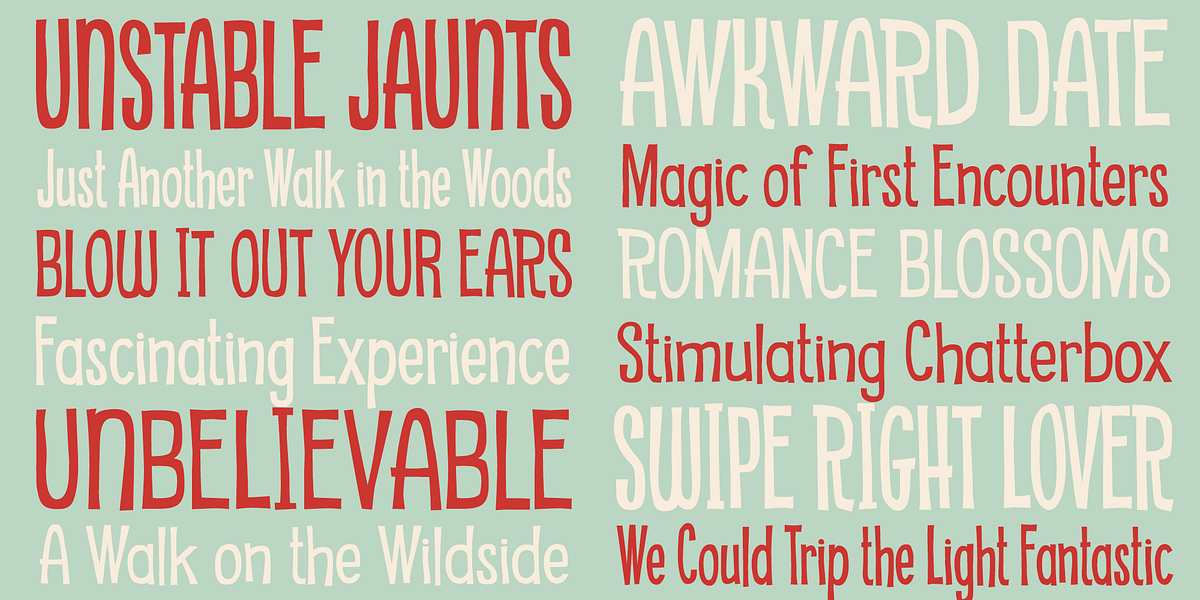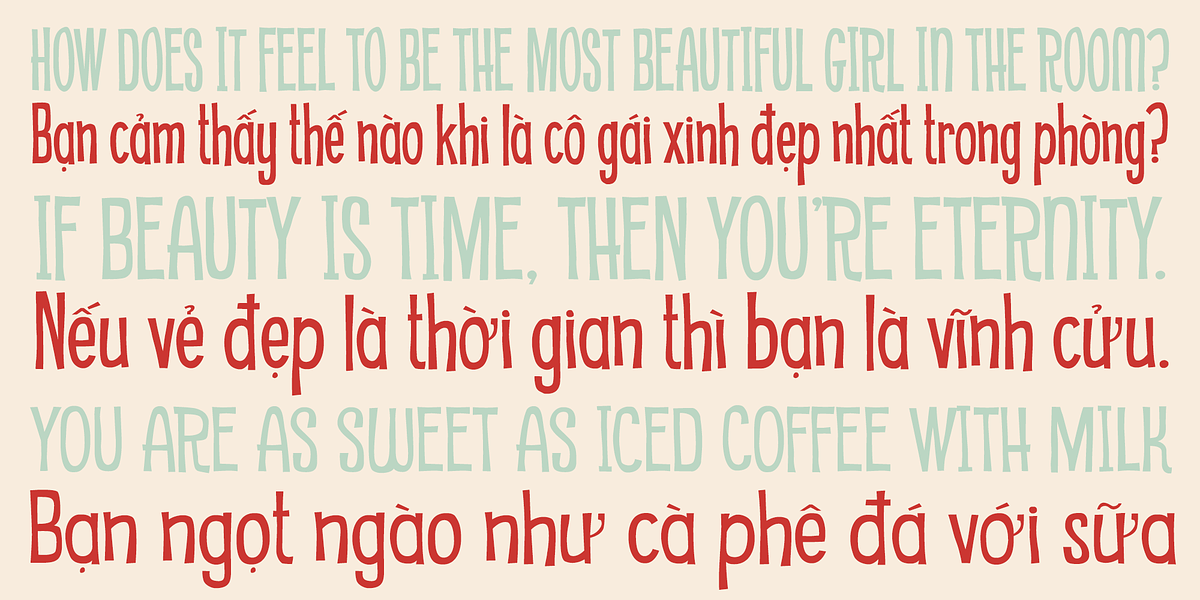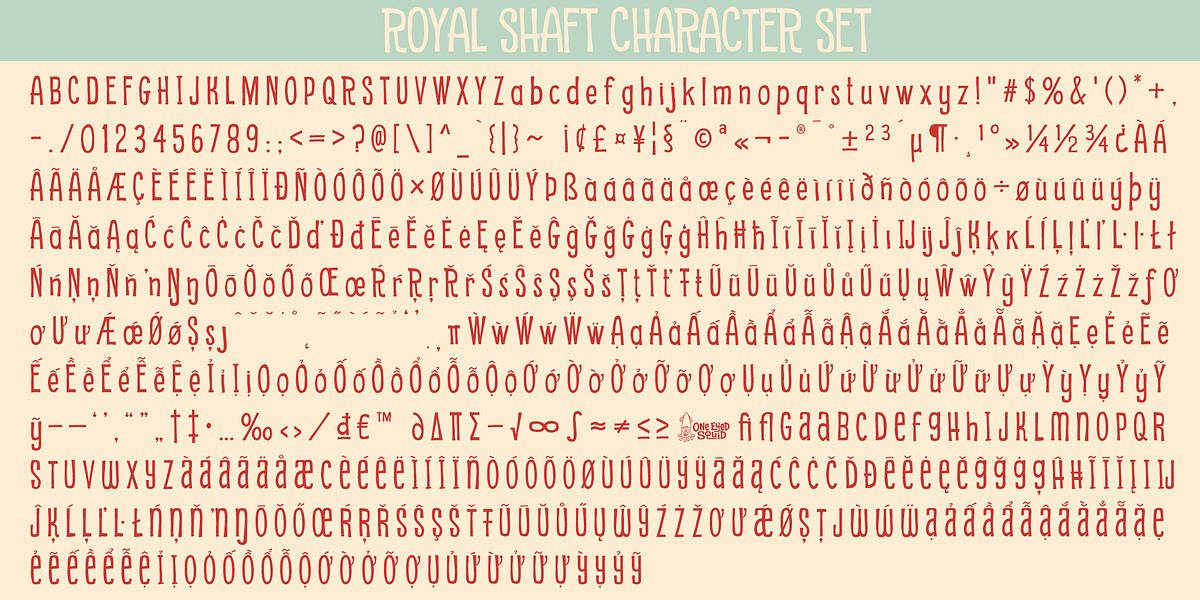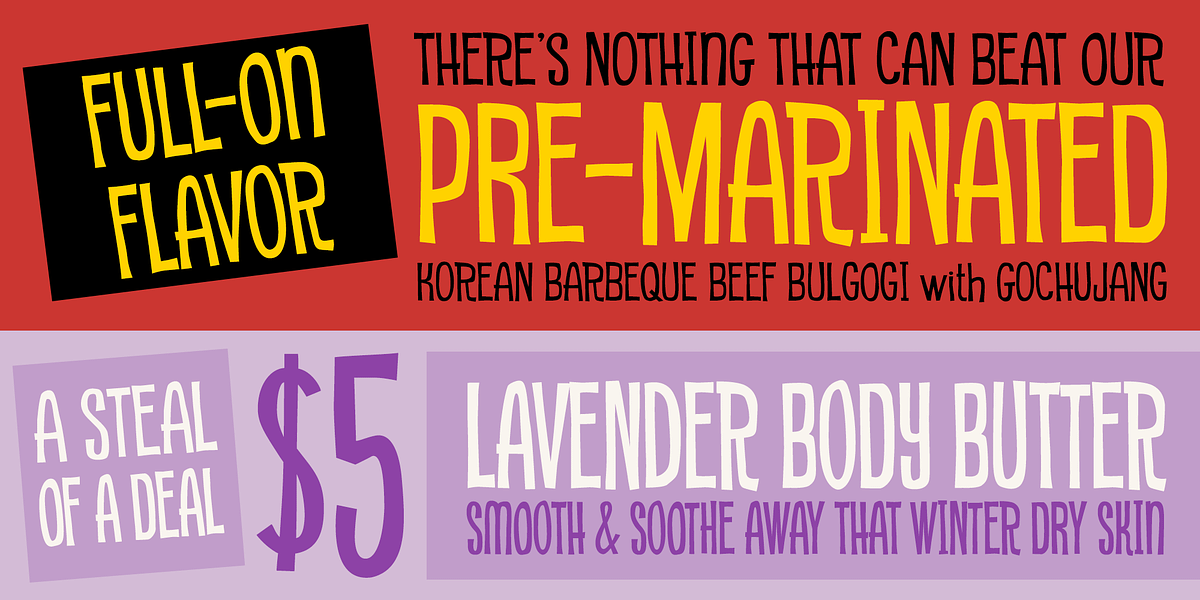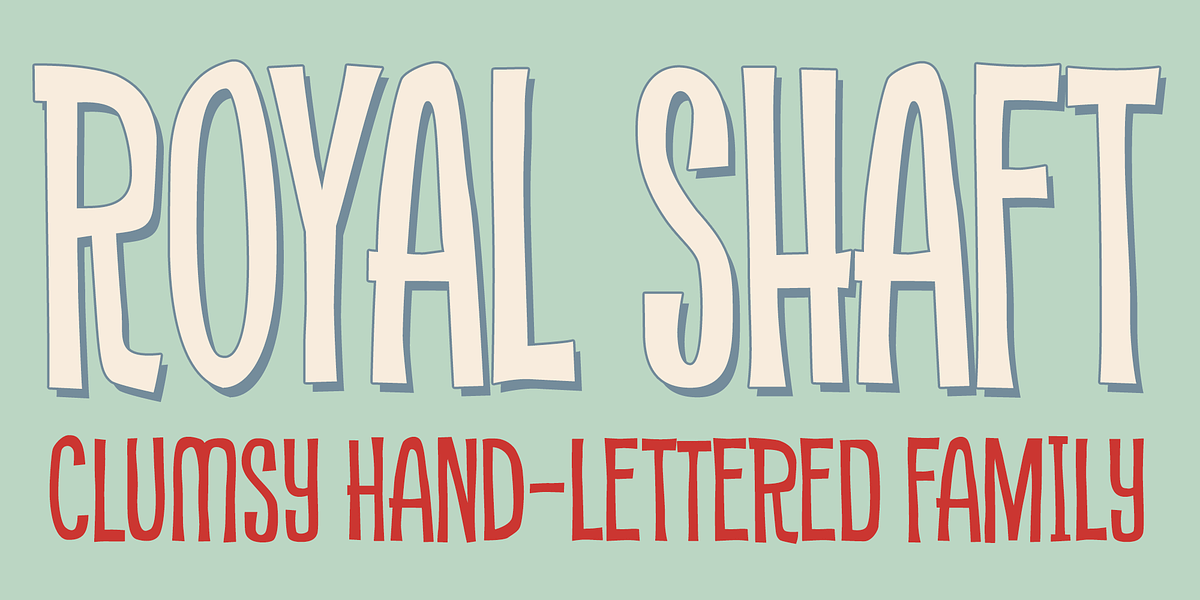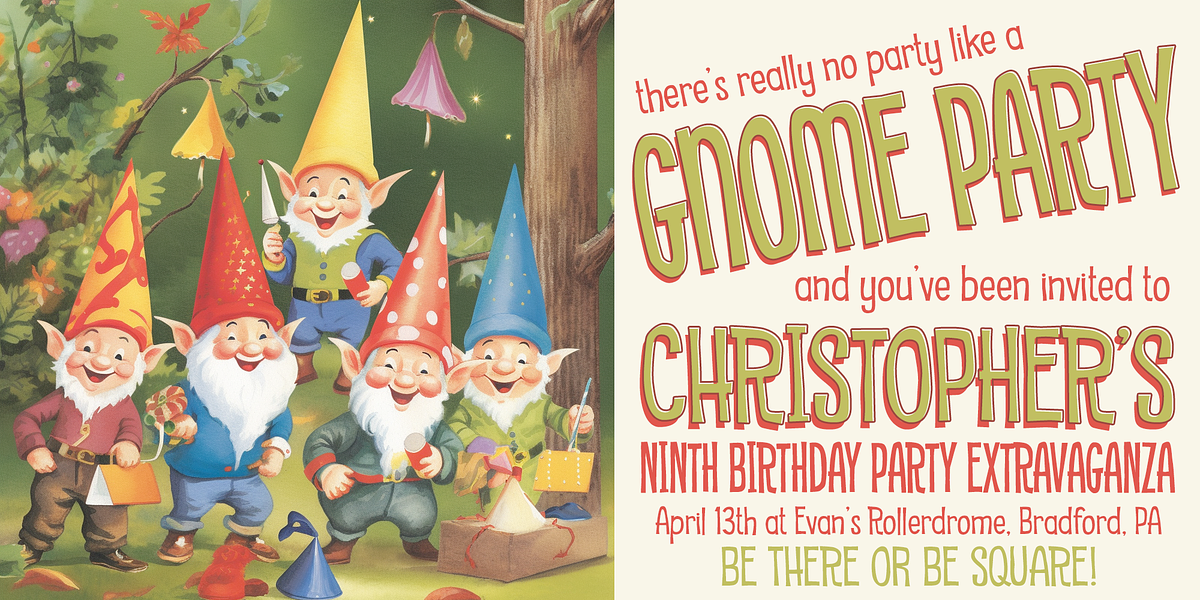
Royal Shaft
Royal Shaft is a hand-drawn display font characterized by its charmingly clumsy aesthetic. It brings a unique and endearing vibe to designs with delightful quirkiness. Available in three widths – Condensed, Regular, and Wide – it offers versatility for various typesetting needs.